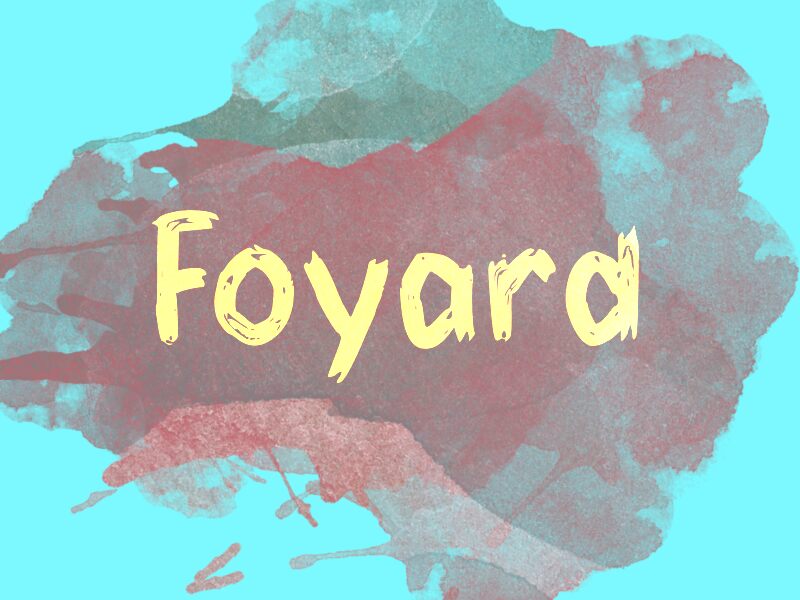
Foyard
Foyard, designed by wep, is a semi-bold and semi-condensed brush font that exudes creative energy with every stroke. With its raw, hand-painted characteristics, this font captures the spontaneity and expressiveness of an artist's brush. The uneven edges and varied line thickness provide a dynamic aesthetic that is both lively and visually engaging.
The semi-condensed width of Foyard ensures that it delivers impact without overwhelming space, making it an excellent choice for headlines or projects where you want to convey a sense of motion or emotion. Its unique style bridges the gap between casual and professional, giving designers the flexibility to use it in a wide range of creative projects-from branding materials to expressive editorial layouts.
Embrace the boldness of Foyard for designs that require personality without sacrificing readability. Whether used in digital media or print, this font is poised to add an artistic touch that will captivate your audience.